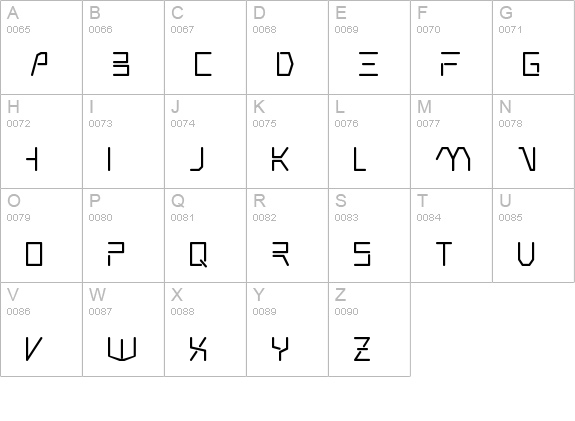
RSAndromeda Medium is a balanced, medium-weight variant in the RSAndromeda typeface family \xE2\x80\x94 well suited to sub-headlines, navigation, and balanced editorial work.
RSAndromeda Medium font is a versatile and elegant typeface that exudes modernity and sophistication. With its clean lines and balanced proportions, this font is perfect for a wide range of design projects, from branding to editorial design. The medium weight of RSAndromeda gives it a strong presence while maintaining a sense of refinement. What sets RSAndromeda Medium font apart is that it is available for free download at FontsMarket.com. This means that you can easily access this high-quality font without any cost, making it a valuable tool for designers and creatives looking to elevate their projects. Whether you're working on a website, poster, or packaging design, RSAndromeda Medium font is sure to add a touch of class and modernity to your work.